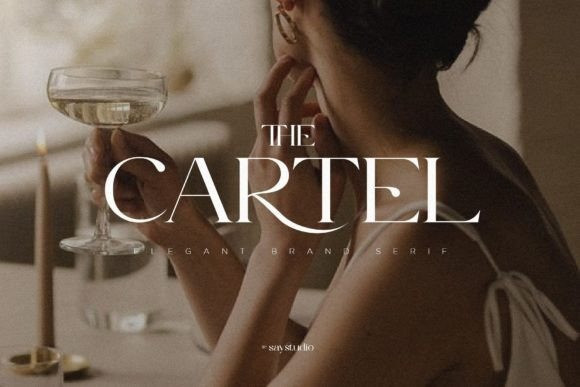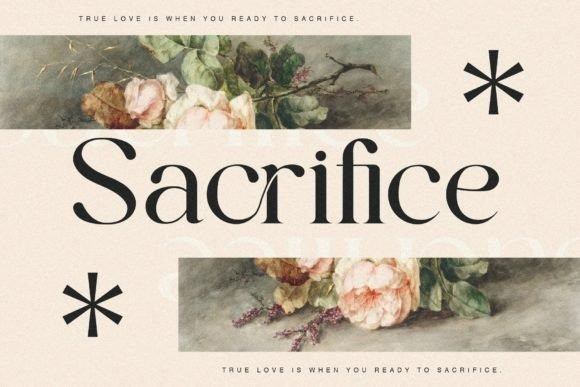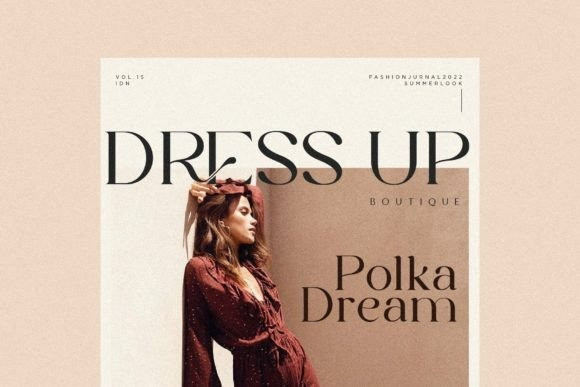
The Cartel Font
The Cartel is an elegant serif font. This typeface has been made carefully to make sure of its premium quality and luxury feel. The ligatures make this typeface unique compared to the regular serif font. Very suitable for logo, headline, title, and other various formal forms such as invitations, labels, logos, magazines, books, greeting/wedding cards, packaging, fashion, make-up, stationery, novels, labels, or any type of advertising purpose.